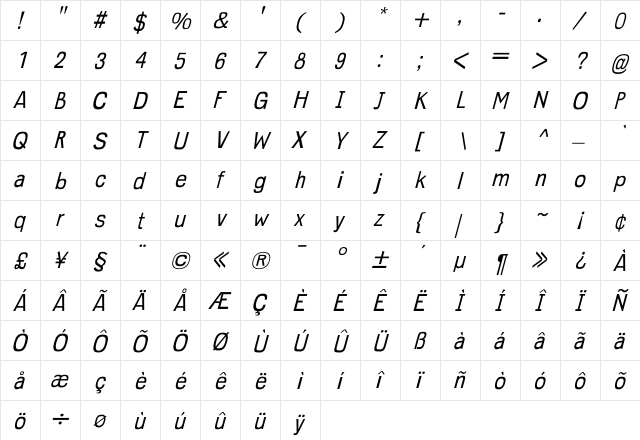
Imperfect Oblique
Design Context for Imperfect Typeface
Imperfect is a composed and adaptable typeface that performs quietly and consistently across a wide range of design contexts. The slanted form adds forward momentum and visual energy.
Pro Tip: Use Imperfect for emphasis, pull quotes, and subheadings where its slanted energy can add rhythm to the layout.